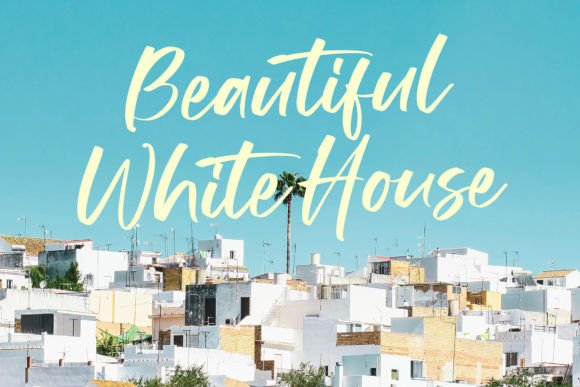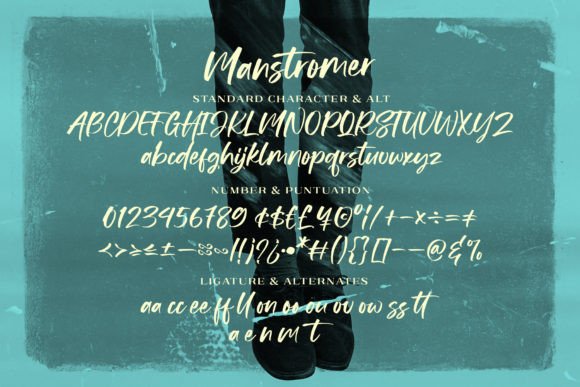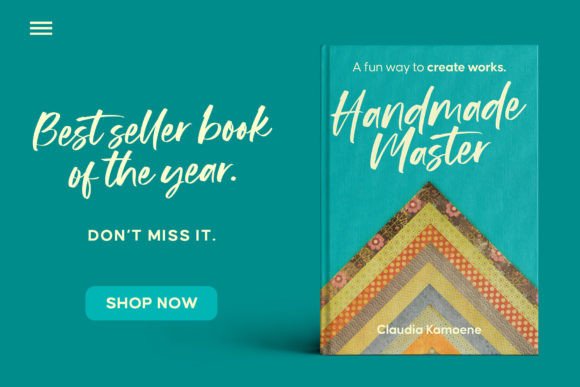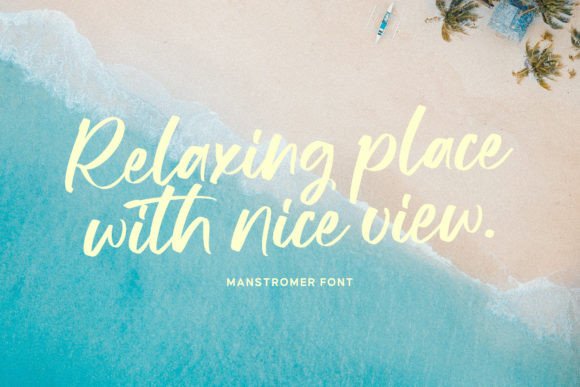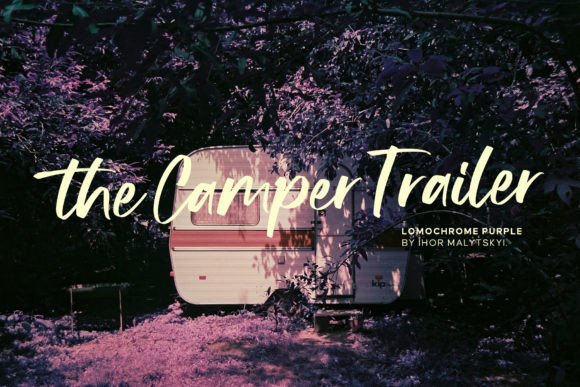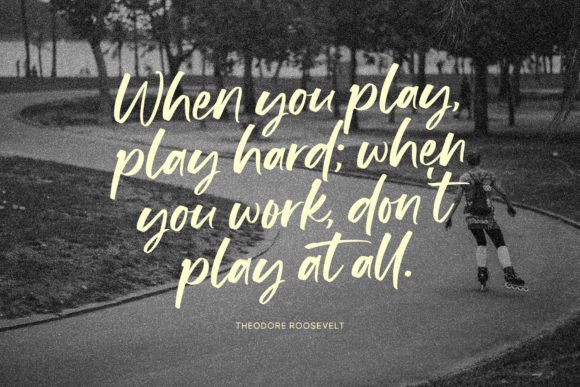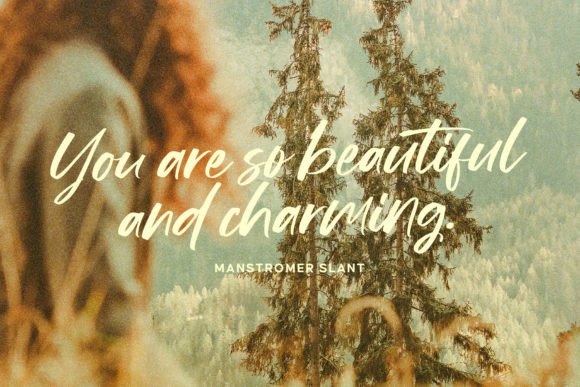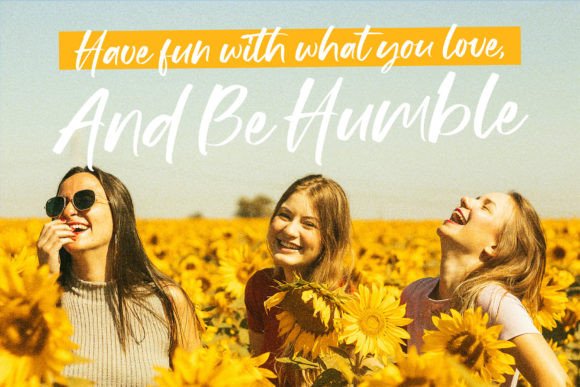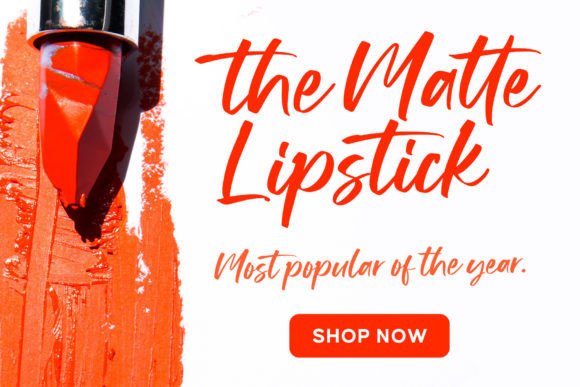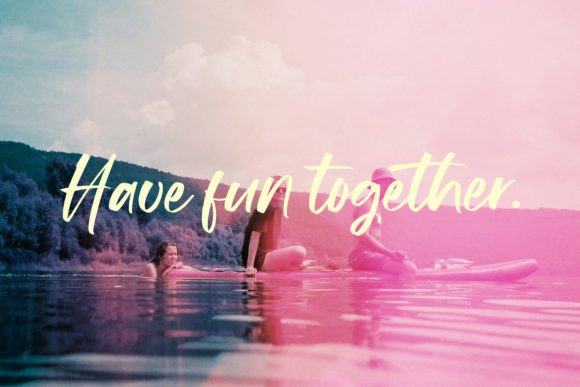
Manstromer Font
Manstromer is not just a font; it’s a dynamic handwritten script that captures the essence of fast movements. With its two styles, regular and slant, Manstromer offers versatility that suits a range of creative projects, from branding and advertising to headlines and packaging design.
The dynamic and handwritten nature of Manstromer is evident in its script design. The characters are crafted with fast movements, creating a sense of energy and spontaneity. Whether you’re working on branding materials or packaging design, Manstromer ensures that your designs exude a dynamic and lively quality.
In branding and advertising, Manstromer becomes a bold and eye-catching choice. Its dynamic script adds a sense of movement, making your brand or promotional materials visually appealing and attention-grabbing. The versatility of having both regular and slant styles allows you to choose the one that best suits the mood and tone of your project.
For headlines and packaging design, Manstromer’s dynamic script adds an extra layer of excitement. The fast movements in the characters turn your text into visually striking statements, capturing attention and conveying a sense of action and style.
By including Manstromer in your font collection, you’re not just adding a typeface; you’re selecting a design element that infuses your projects with dynamic energy. Manstromer is designed to bring a sense of movement and liveliness to your creative endeavors.
In essence, Manstromer is a font that goes beyond being a tool. It’s an expression of dynamic handwritten script charm that transforms your branding, advertising, and creative projects into visually striking and energetic works of art.